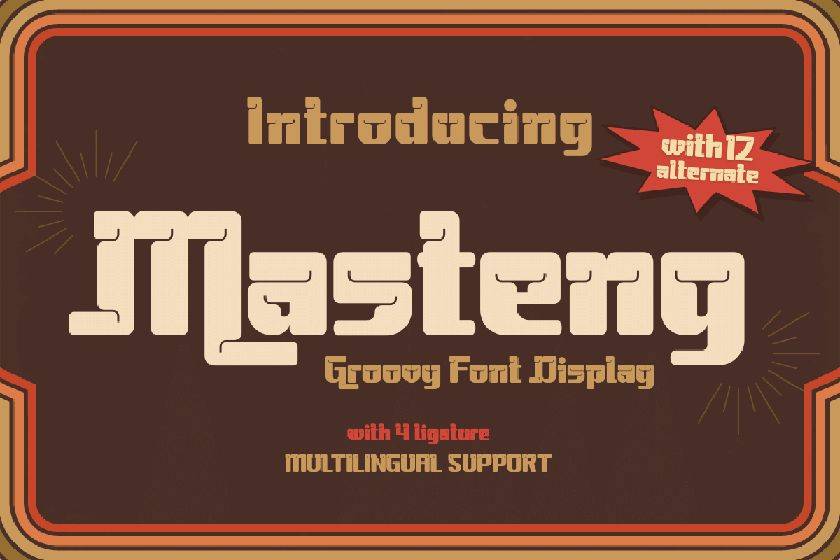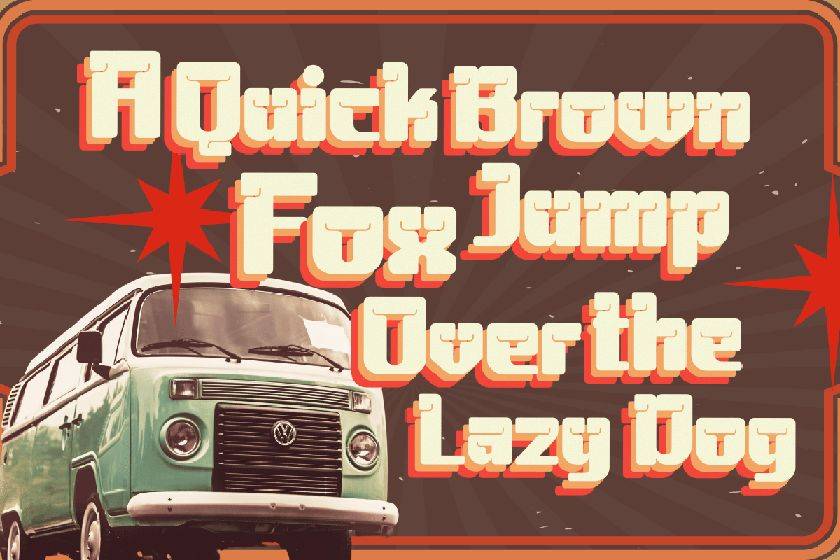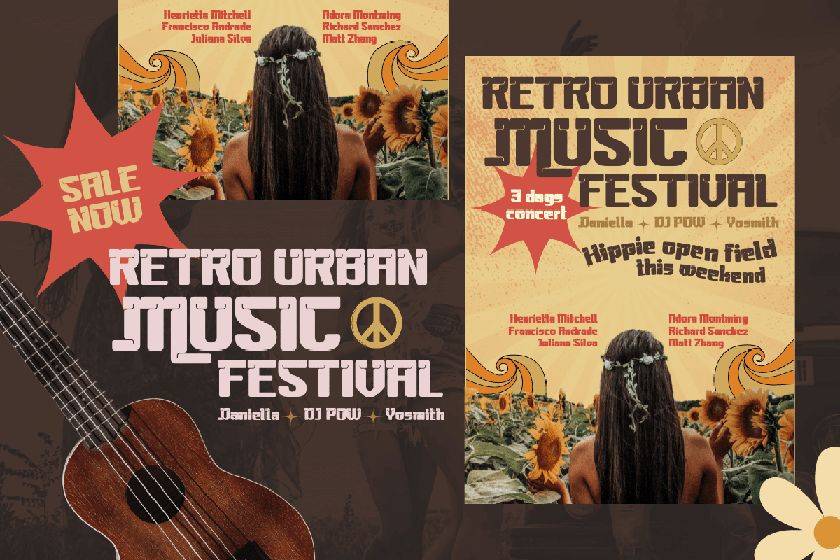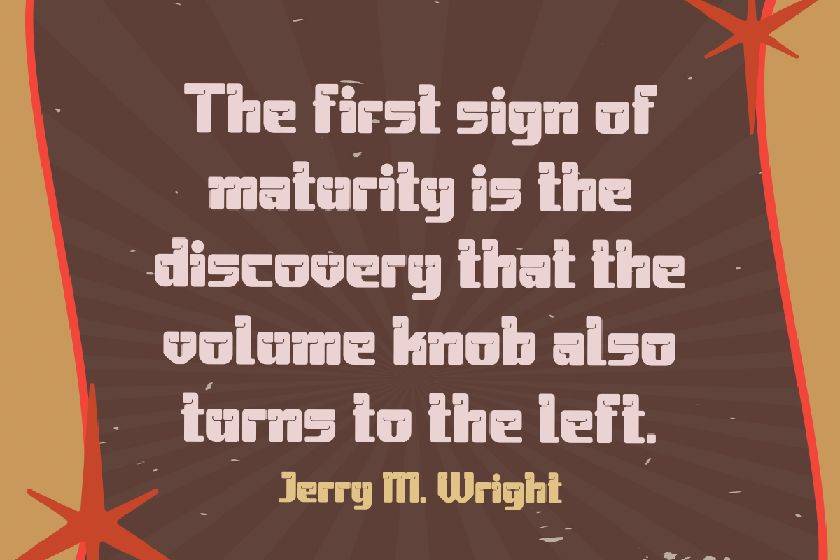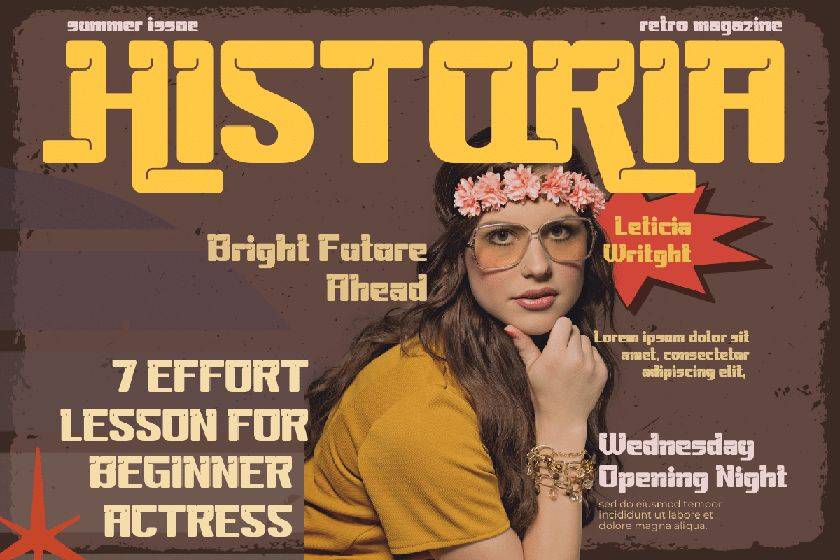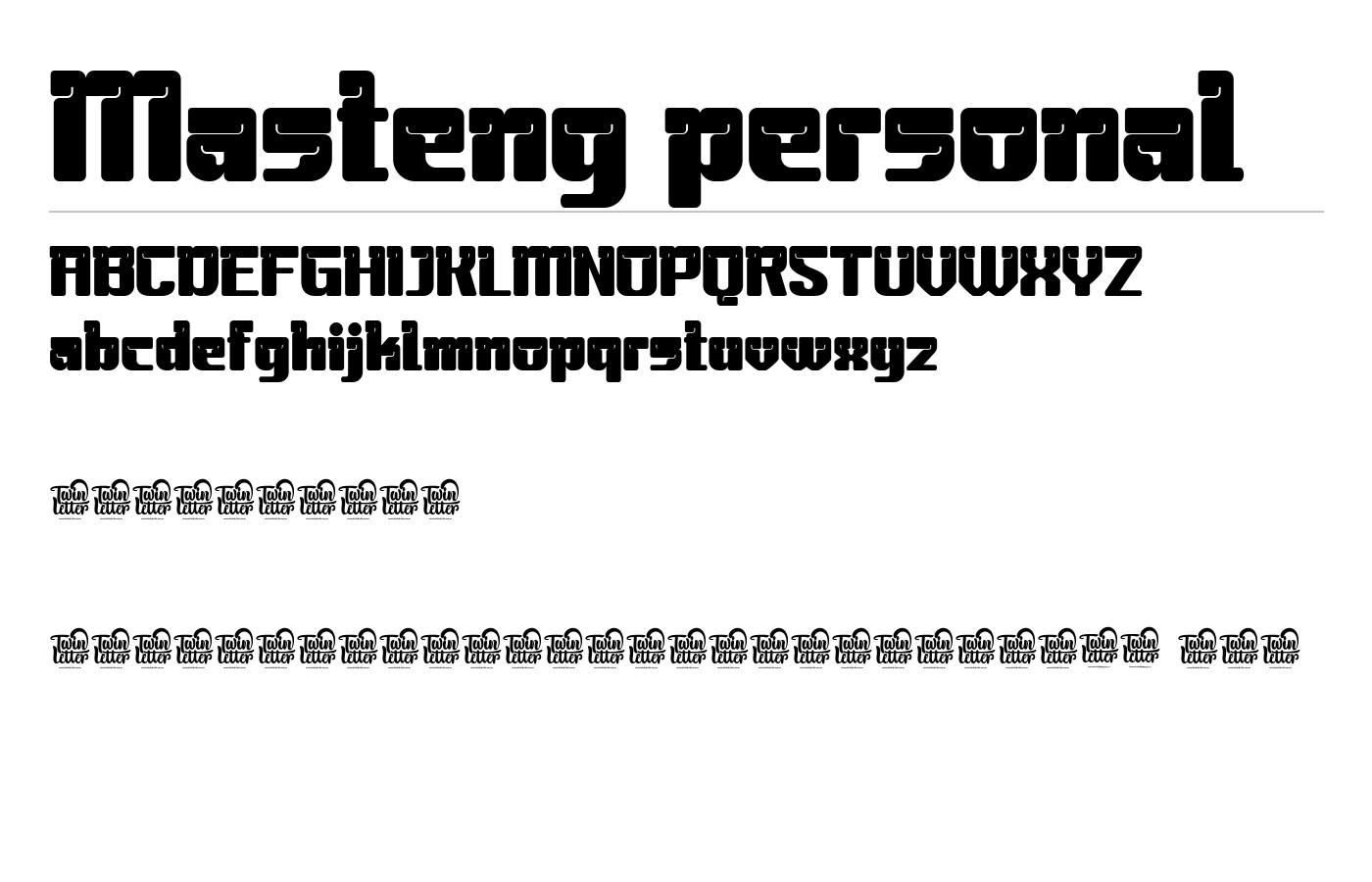
Masteng is a bold, slab serif typeface with a strong, blocky presence and distinct geometric shapes that give it a sturdy yet playful feel. Its high contrast and unique decorative terminals make it ideal for eye-catching headlines, logos, and posters where a statement font is needed. This font works well for brands seeking a bold, confident vibe with a touch of vintage charm.
Masteng Font
About Masteng Font